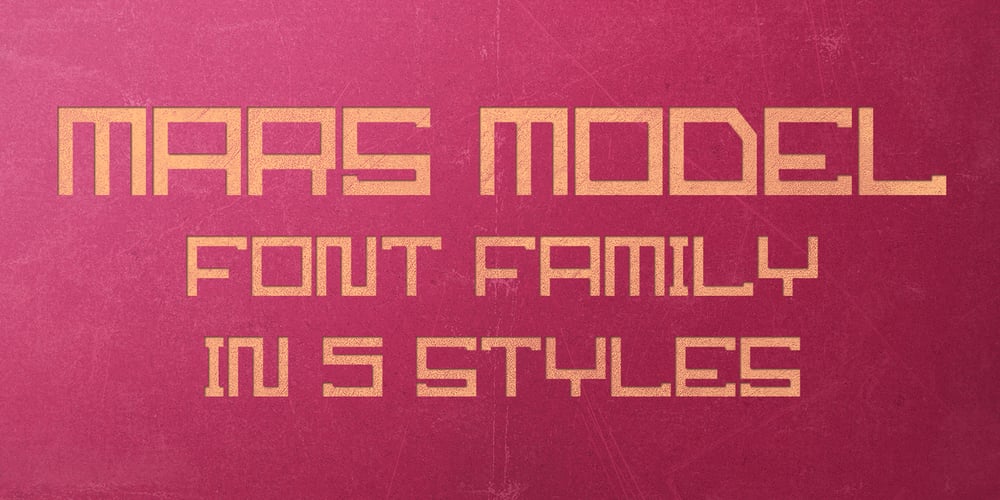
Mars Model Font Family was designed by Coert De Decker and published by Kustomtype. Mars Model contains 5 styles and family package options. Mars Model is a font that’s originated from a concept for a rock band. With its 5 fun styles, Mars Model gives your graphic work a futuristic look that is reminiscent of the warm look and touch of Arts & Crafts. This style of type is instantly associated with advertising and design for high-end products. Mars Model is an entirely hand-drawn font, perfectly vectorized and meticulously digitized for quality and readability. Also, the font can be used for a refined vintage feeling or an industrial and futuristic atmosphere. Mars Model is great for display, logos, branding, packaging, advertising, food, sports, titles, film, TV, and much more. Doesn’t that sound perfect to you?